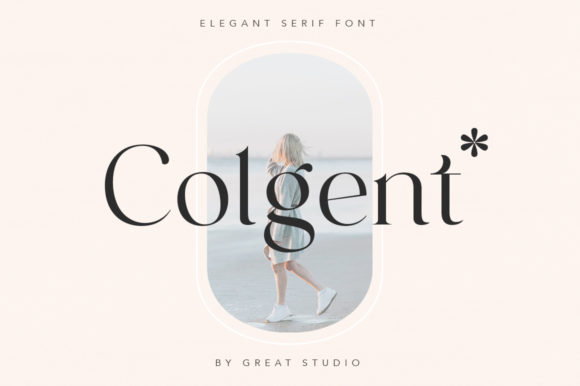
Introducing Colgent Font: Elevate Your Crafting Projects with a Touch of Elegance
In the world of crafting, the right font can make all the difference in transforming a simple project into a stunning masterpiece. If you’re on the lookout for a font that exudes modernity and class, look no further than Colgent Font. This beautiful serif font is designed to add a personalized touch to any crafting project, making it stand out from the crowd.
What is Colgent Font?
Colgent Font is a modern serif font that boasts a sleek and sophisticated design. Its clean lines, elegant curves, and precise lettering make it perfect for a wide range of crafting projects, from DIY signs and cards to scrapbooking and journaling. Whether you’re a professional designer or a hobbyist crafter, Colgent Font is sure to become your go-to choice for adding a touch of elegance to your creations.
Key Features of Colgent Font
- Modern and Classy Design: Colgent Font features a contemporary design with a classic twist, making it suitable for a variety of crafting projects.
- Smooth and Elegant Lines: The font’s smooth lines and elegant curves create a sophisticated look that’s perfect for adding a touch of luxury to your projects.
- Highly Legible: Colgent Font is designed to be highly legible, making it easy to read and understand, even at small sizes.
- Versatile: This font can be used for a wide range of crafting projects, from digital designs to handmade creations.
Why Choose Colgent Font?
- Unique and Distinctive: Colgent Font has a unique and distinctive design that will set your projects apart from others.
How to Use Colgent Font in Your Crafting Projects
- DIY Signs: Add a touch of elegance to your DIY signs with Colgent Font, perfect for weddings, parties, and special events.
- Card Making: Create beautiful greeting cards with Colgent Font, ideal for birthdays, holidays, and special occasions.
- Scrapbooking: Add a modern touch to your scrapbooking projects with Colgent Font, perfect for journaling and titling.
- Journaling: Use Colgent Font to add a touch of sophistication to your journaling and diary entries.
Tips and Tricks for Getting the Most Out of Colgent Font
- Experiment with Different Sizes: Try using Colgent Font in different sizes to create visual interest and hierarchy in your projects.
- Pair with Other Fonts: Pair Colgent Font with other fonts to create a unique and interesting contrast.
- Adjust the Color: Experiment with different colors to find the perfect match for your project’s theme and style.
Colgent Font is a modern and classy serif font that’s perfect for adding a personalized touch to your crafting projects. With its sleek design, smooth lines, and elegant curves, this font is sure to become your go-to choice for creating stunning masterpieces. Whether you’re a professional designer or a hobbyist crafter, Colgent Font is a must-have in your font collection.